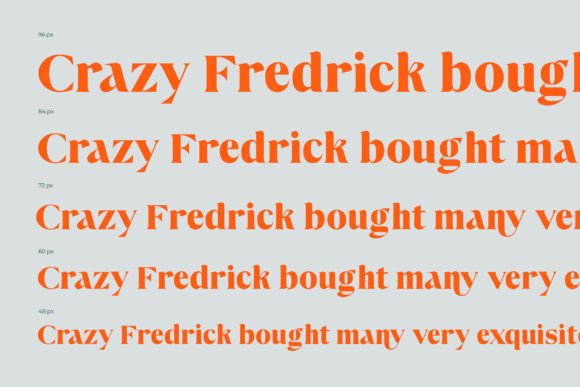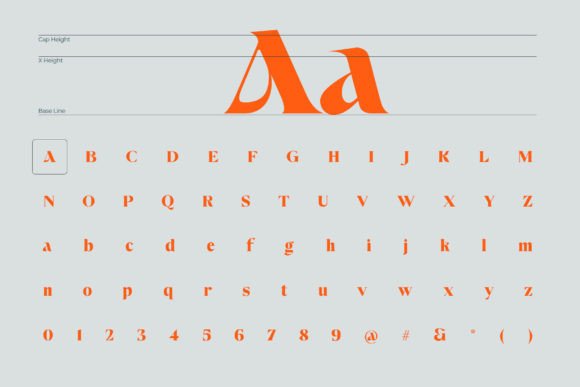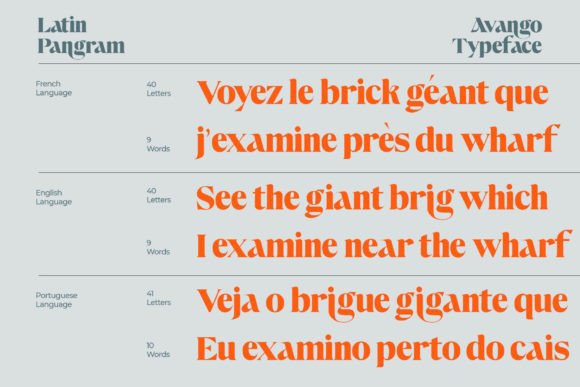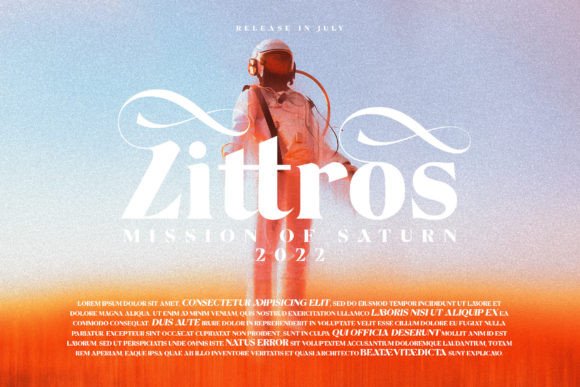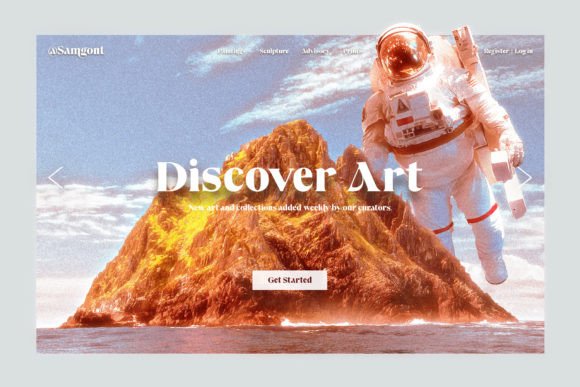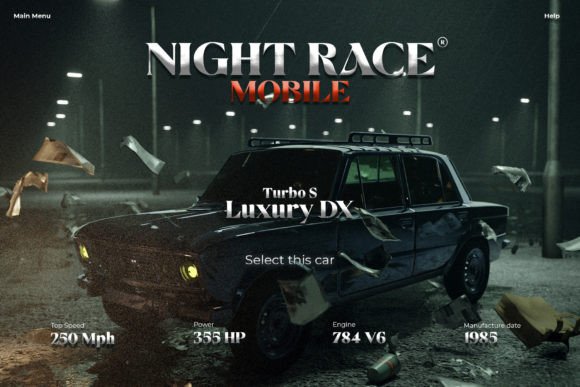
Introducing Avango Font: Elevate Your Designs with Luxury and Elegance
Are you looking for a font that can add a touch of sophistication and glamour to your design projects? Look no further than Avango Font. This stylish and elegant display font is perfect for designers and crafters who want to create luxurious and high-end designs. In this article, we’ll take a closer look at Avango Font, its features, and how it can elevate your designs.
What is Avango Font?
Avango Font is a beautifully crafted display font that exudes luxury and elegance. Its stylish and refined design makes it perfect for use in high-end designs, such as luxury branding, packaging, and advertising. The font is designed to add a touch of sophistication to any design project, making it ideal for designers who want to create unique and eye-catching designs.
Key Features of Avango Font
Avango Font comes with a range of features that make it a versatile and practical choice for designers. Some of its key features include:
• PUA Encoding: Avango Font is PUA (Private Use Area) encoded, which means that you can access all of the amazing glyphs and ligatures with ease. This makes it easy to use the font in your designs and ensures that you can get the most out of its features.
• Ligatures and Glyphs: The font comes with a range of ligatures and glyphs that can be used to add a touch of elegance to your designs. These glyphs and ligatures can be used to create unique and eye-catching text effects that will set your designs apart.
• Stylish and Elegant Design: Avango Font has a stylish and elegant design that is perfect for use in high-end designs. Its refined lines and curves make it a versatile font that can be used in a range of design projects.
How to Use Avango Font in Your Designs
Avango Font is easy to use in your designs, and its PUA encoding makes it simple to access all of its features. Here are some tips on how to use Avango Font in your designs:
• Use it for Headings and Titles: Avango Font is perfect for use in headings and titles, where its stylish and elegant design can be used to add a touch of luxury to your designs.
• Pair it with Other Fonts: Avango Font can be paired with other fonts to create a unique and eye-catching design. Try pairing it with a sans-serif font for a modern and elegant look.
• Experiment with Glyphs and Ligatures: Avango Font comes with a range of glyphs and ligatures that can be used to add a touch of elegance to your designs. Experiment with different glyphs and ligatures to create unique and eye-catching text effects.
Benefits of Using Avango Font
There are many benefits to using Avango Font in your designs. Some of the key benefits include:
• Adds a Touch of Luxury: Avango Font adds a touch of luxury and elegance to any design project, making it perfect for high-end designs.
• Versatile and Practical: Avango Font is a versatile and practical font that can be used in a range of design projects, from branding and packaging to advertising and marketing materials.
• Easy to Use: Avango Font is easy to use in your designs, and its PUA encoding makes it simple to access all of its features.
Avango Font is a stylish and elegant display font that is perfect for designers and crafters who want to create luxurious and high-end designs. Its PUA encoding, ligatures, and glyphs make it a versatile and practical choice for designers, and its stylish and elegant design ensures that it will add a touch of sophistication to any design project. Whether you’re looking to create luxury branding, packaging, or advertising materials, Avango Font is a great choice.